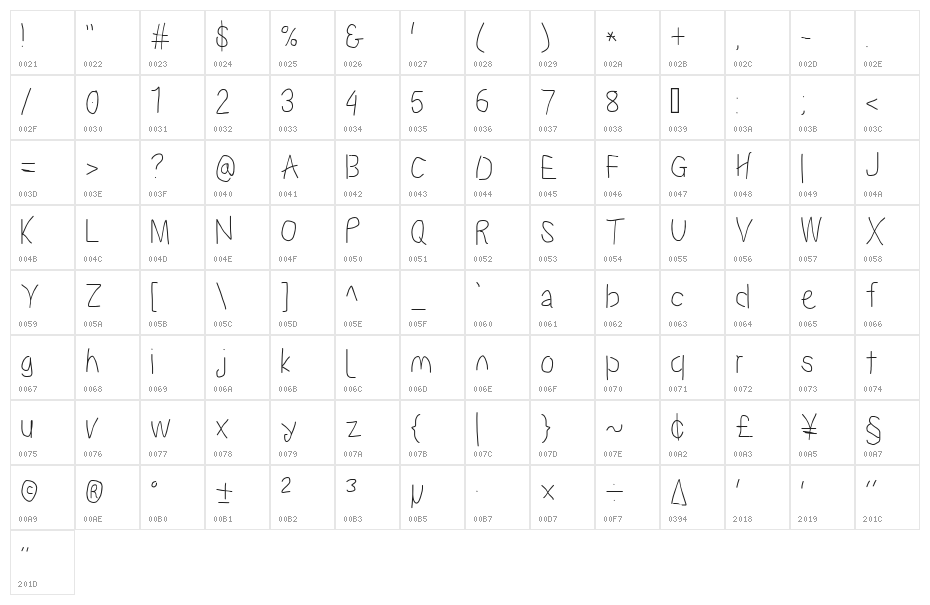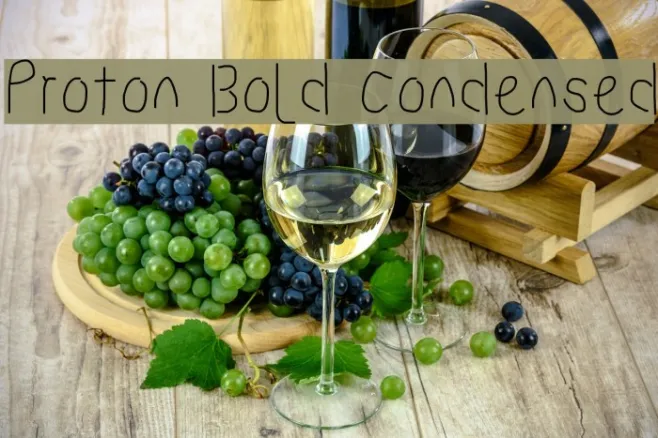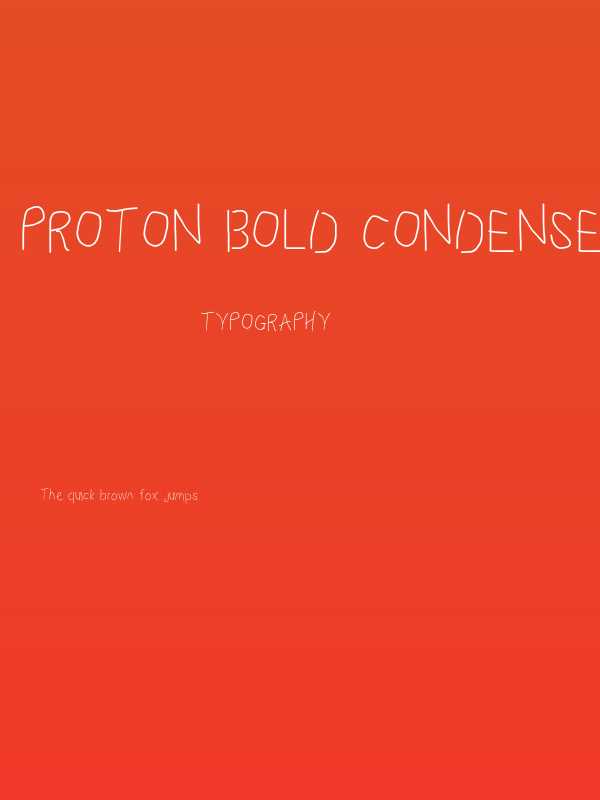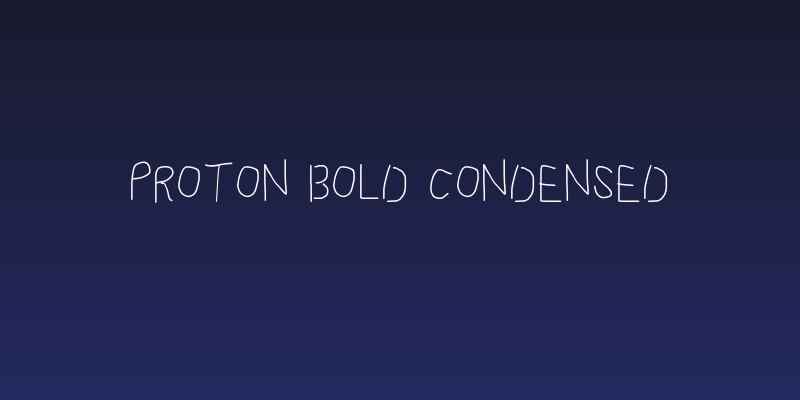
Proton Bold Condensed Font
Proton Bold Condensed Description
This font features a playful and informal handwritten style, characterized by its uneven strokes and casual appearance. The letters have a slightly irregular shape, giving them a whimsical and approachable feel. The uppercase and lowercase letters maintain a consistent style, with a noticeable slant and varying stroke thickness that adds to the font's charm. The numbers and special characters follow the same playful design, making the font versatile for creative projects. Its condensed form allows for efficient use of space, making it suitable for headlines and short text blocks.
| Proposed Projects | Ideal for children's books, casual invitations, greeting cards, and creative posters. |